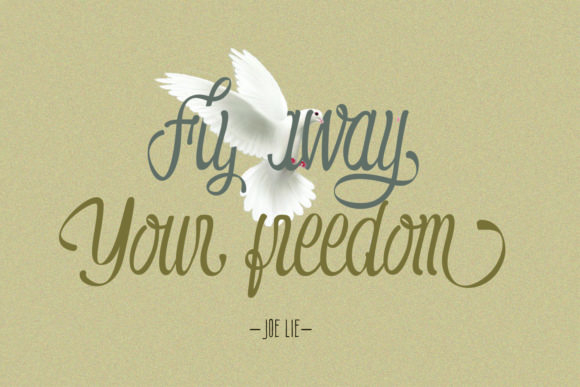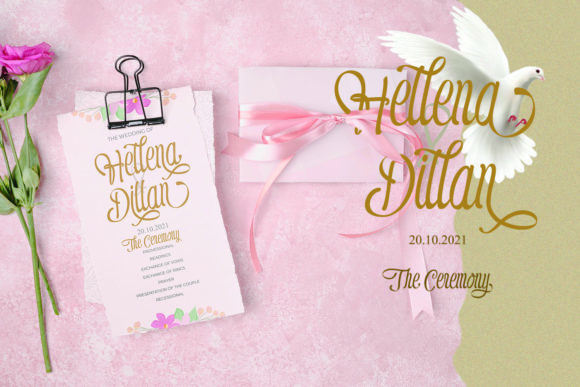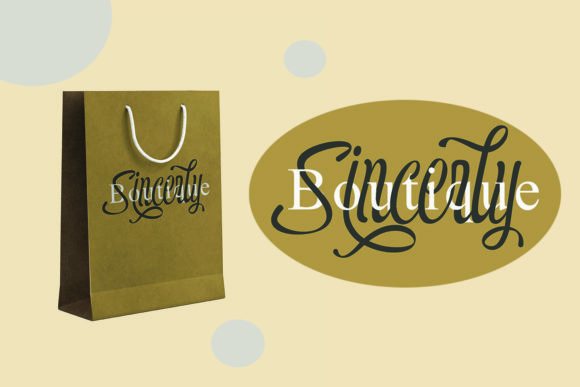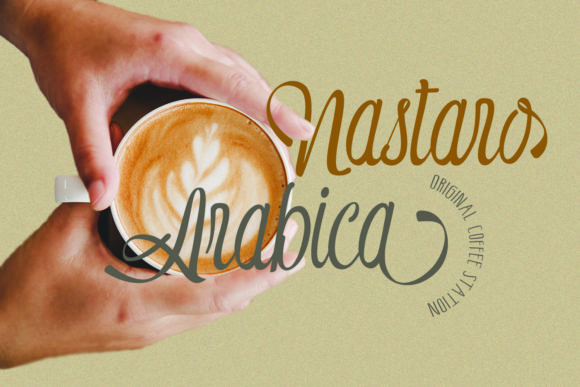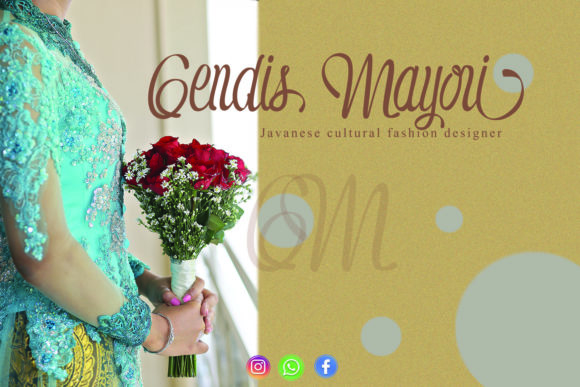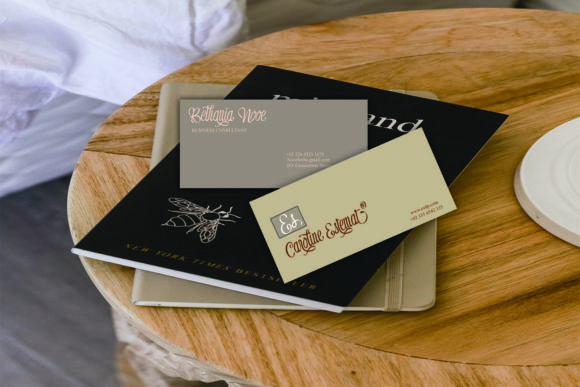
Introduction to Right Moment Font
Have you ever been working on a creative project and found the perfect moment to add that special touch that makes it truly unforgettable? That’s exactly what the Right Moment Font is designed to do – add a luxury spark to your design project that will leave a lasting impression.
With its romantic and sweet calligraphy style, this font is perfect for designers looking to create high-quality, visually appealing designs. The Right Moment Font is more than just a font – it’s a design resource that can elevate your creative project to the next level.
Key Features of Right Moment Font
- Transparent background, making it easy to customize and combine with other design elements.
- Includes a comprehensive character set, covering Latin, Cyrillic, and Greek alphabets, as well as punctuation and symbols.
- Designed with precision and attention to detail, offering a high-resolution (300 DPI) and scalable font suitable for both print and digital applications.
- Perfect for designers seeking a unique and elegant font to elevate their creative project, with a size range of 10-100 points.
Honest Review: Right Moment Font
As a designer, I’m always on the lookout for high-quality design resources that can elevate my creative projects. Recently, I stumbled upon the Right Moment Font, and I’m excited to share my honest review.
- High-quality design: The Right Moment Font is beautifully crafted, with smooth lines and a clean aesthetic that’s perfect for modern designs.
- Transparent background: The font’s transparent background makes it easy to use on complex backgrounds or with creative layering.
The only limitation I’ve noticed is that the font is a bit limited in its character set. While it includes a range of standard characters, it’s not ideal for projects that require a wide range of special characters.
Overall, I’m impressed with the Right Moment Font. Its high-quality design, free download, and transparent background make it an excellent resource for designers. While it has some limitations, I believe it’s a great choice for most creative projects.
Tips for Getting the Most Out of Right Moment Font
To get the most out of Right Moment Font, use it on a transparent background to create a seamless design. Experiment with different font sizes and styles to add depth and visual interest to your project.
Right Moment Font is commonly used in various design projects, including:
- Graphic design and branding
- Digital art and illustration
- Print media, such as posters and flyers